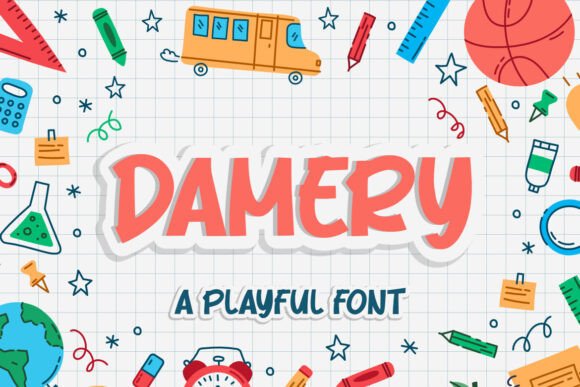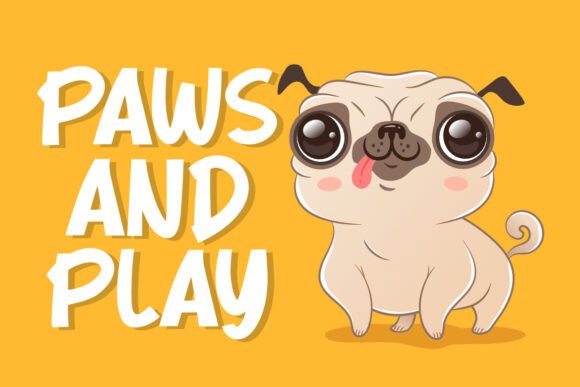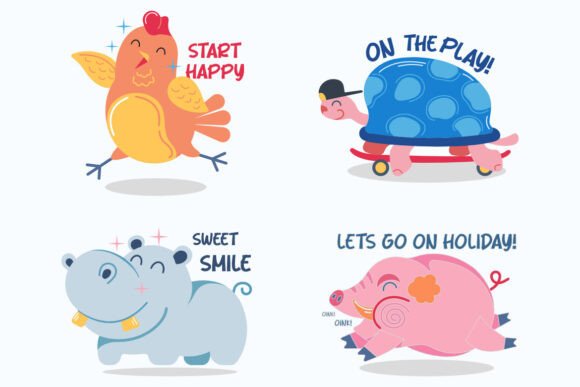
The Joy of Damery Font: Adding a Playful Touch to Your Designs
I’ll never forget the time I was working on a children’s party invitation project, and I just couldn’t find the right font to capture the playful vibe I was going for. The client wanted something fun, cheerful, and engaging, but everything I tried seemed either too boring or too over-the-top. That’s when I stumbled upon the Damery font, and it was love at first sight! ✨
With its bold, rounded letters and cheerful look, Damery instantly brought a smile to my face. I knew right then and there that it was the perfect fit for the project. And since then, I’ve been hooked on this delightful font. In this article, I’ll share with you why I love Damery, its features, and how to make the most of it in your designs.
Damery Font: A Review
- ✅ Playful and cheerful vibe: Damery’s bold, rounded letters are sure to add a fun touch to any project.
- ✅ Easy to read: Despite its playful look, Damery is surprisingly easy to read, making it perfect for body text or headings.
- ✅ Versatile: This font is suitable for a wide range of projects, from kids’ designs to posters, invitations, and more.
- ✨ Unique character: Damery has a distinct personality that sets it apart from other fonts.
While Damery is an excellent font, it’s not without its quirks. Here are a few things to keep in mind:
- ⚠️ Limited use in formal contexts: Due to its playful nature, Damery might not be the best fit for formal projects or professional documents.
- 🤔 Some letters may appear too similar: In certain words or phrases, some letters might appear too similar, which could affect readability.
The Story Behind Damery Font
Damery was designed with one goal in mind: to create a fun, playful font that would bring a smile to people’s faces. The designer, inspired by children’s books and playful typography, crafted Damery to be a cheerful and engaging font. With its bold, rounded letters and simple style, Damery is perfect for projects that need a friendly and light-hearted feel.
Q: What type of projects is Damery best suited for?
A: Damery is perfect for kids’ designs, posters, invitations, and any project that needs a playful, cheerful vibe.
Q: Is Damery a difficult font to read?
A: No, Damery is surprisingly easy to read, making it suitable for body text or headings.